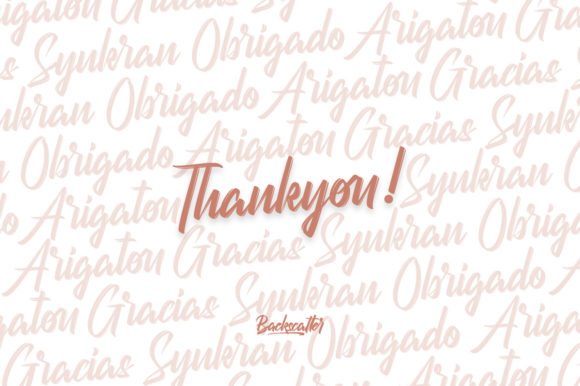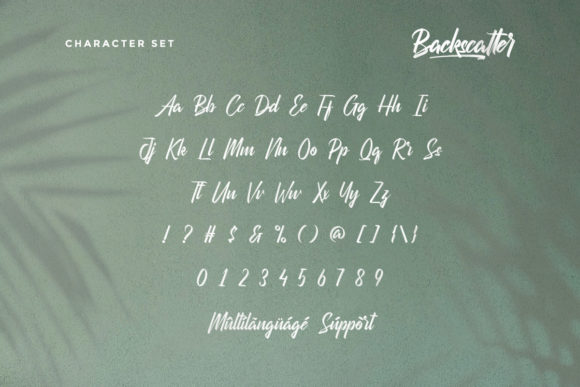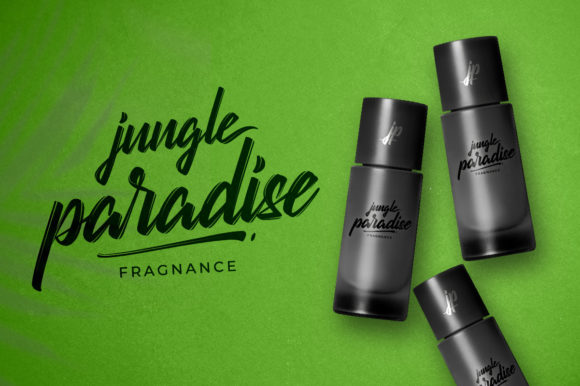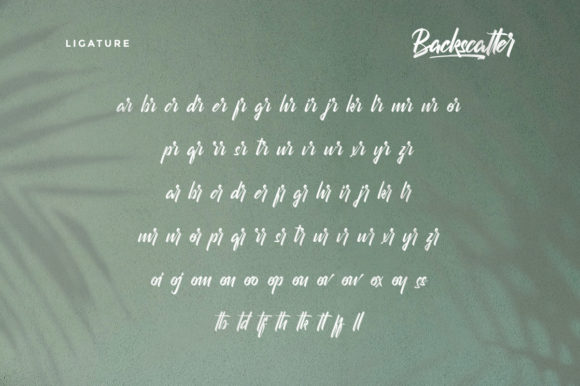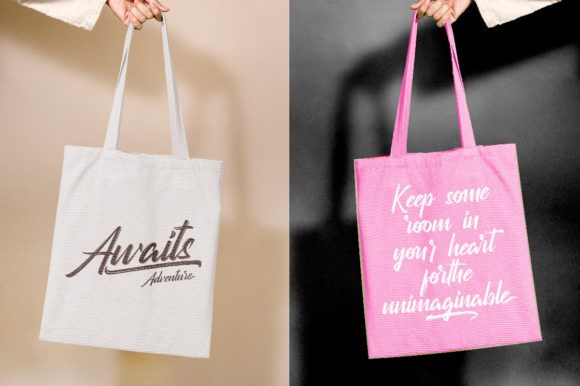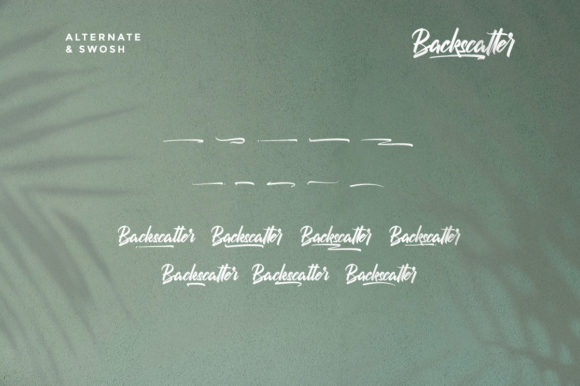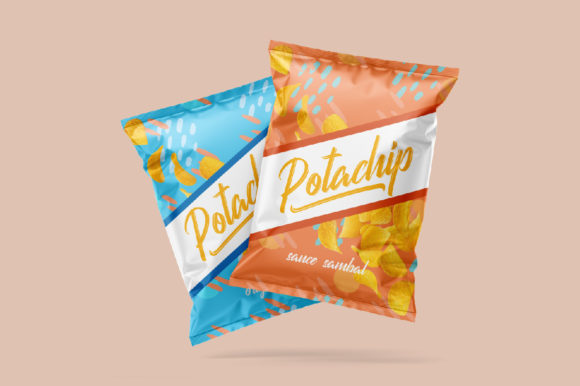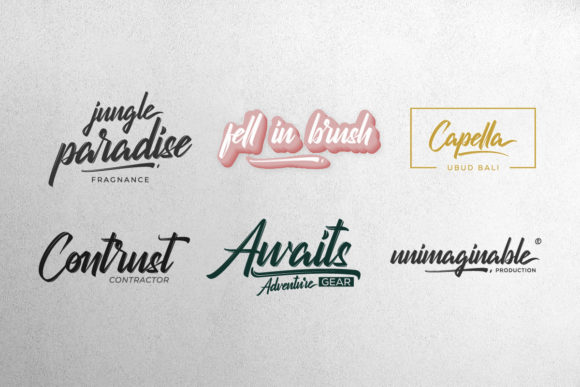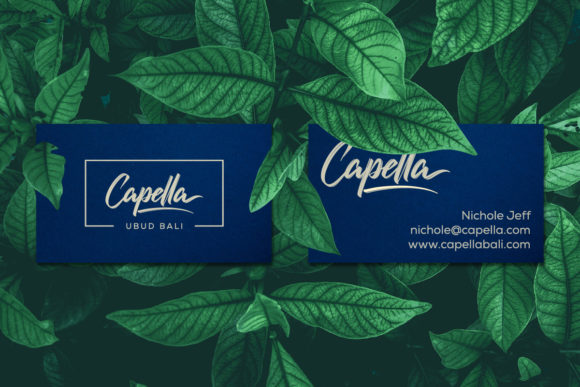
Backscatter Font
Backscatter is a stunning and cursive brushed script font that adds a touch of elegance and nostalgia to your designs. With its strong and confident appearance, this font captures attention and adds a unique character to your projects.
The cursive brush strokes of Backscatter create a flowing and dynamic look, enhancing the overall aesthetic of your design. Whether you’re working on branding, logos, invitations, or any other creative project, Backscatter brings a sense of sophistication and style.
One of the key features of Backscatter is its PUA encoding, which allows easy access to all the glyphs and swashes. This means you can effortlessly customize and personalize your designs, adding beautiful flourishes and unique elements that make them truly stand out.
Backscatter is designed to provide you with a seamless and enjoyable experience. Its smooth and well-crafted characters ensure legibility while maintaining an artistic and expressive quality. Whether you’re a professional designer or a creative enthusiast, Backscatter offers versatility and creativity at your fingertips.
Embrace the beauty and charm of Backscatter in your designs and let it add a touch of nostalgia and sophistication to your creative endeavors.